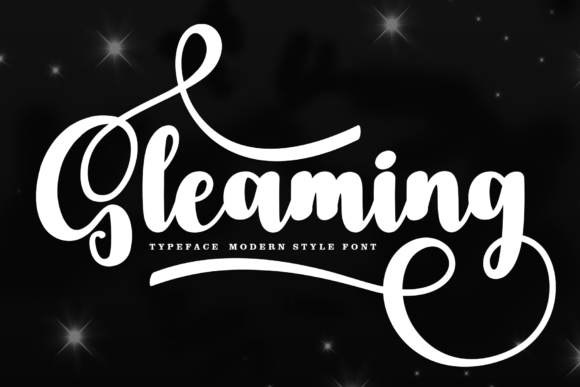
Prepare your senses for Gleaming Font, a masterpiece that dances along the lines between elegance and charm. This hand-crafted, script font, created by the talented Strongkeng Old, is a testament to the beauty of handwritten artistry. Each character exudes a unique personality, flowing effortlessly like a melody, making it an exquisite choice for those seeking to add a touch of magic to their creative projects.
Step into a world of enchantment and personalization with the Gleaming Font. This script font is designed to capture the essence of heartfelt emotions, transforming ordinary words into captivating expressions. Whether you're crafting a wedding invitation, a heartfelt letter, or a playful greeting card, Gleaming Font will elevate your message, making it an unforgettable keepsake.
With its delicate curves and graceful strokes, the Gleaming Font embodies a sense of timeless elegance. Its versatility knows no bounds, effortlessly complementing a wide range of design aesthetics. From rustic charm to modern minimalism, this font adapts seamlessly, adding a touch of sophistication wherever it's used.
Explore the boundless possibilities of creative expression with the Gleaming Font. Unleash your imagination and craft designs that resonate with warmth, personality, and timeless appeal. Whether you're a seasoned designer or just starting your creative journey, Gleaming Font will be your trusted companion, guiding you towards masterpieces that captivate and inspire.
Let your words dance with grace, let your designs radiate charm, let Gleaming Font ignite the flame of creativity within you. Discover the transformative power of this exquisite font today and embark on a journey of aesthetic greatness.